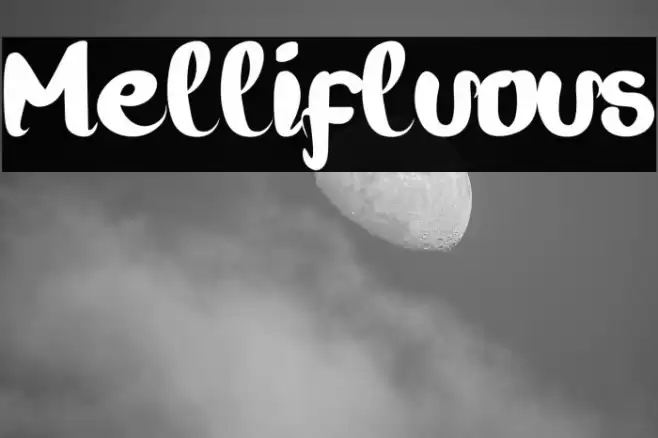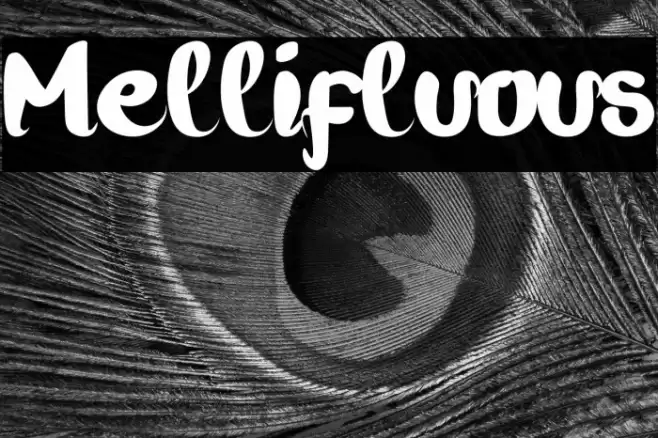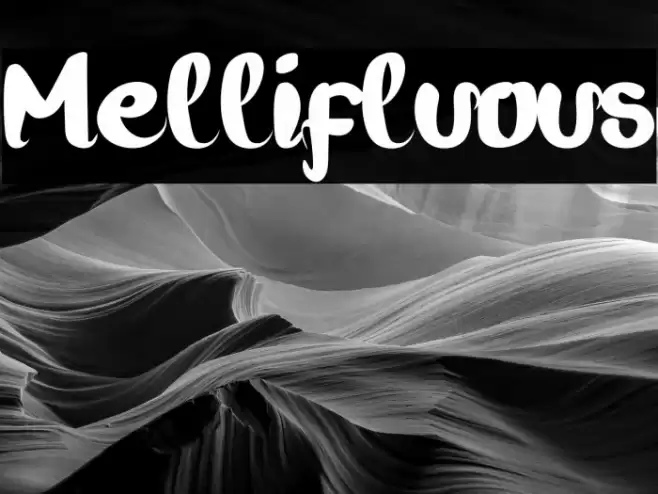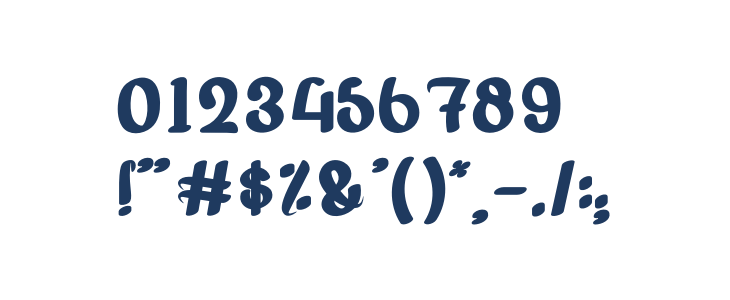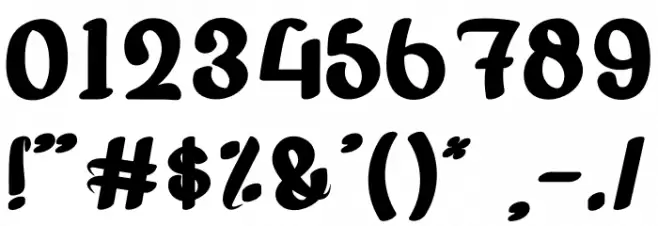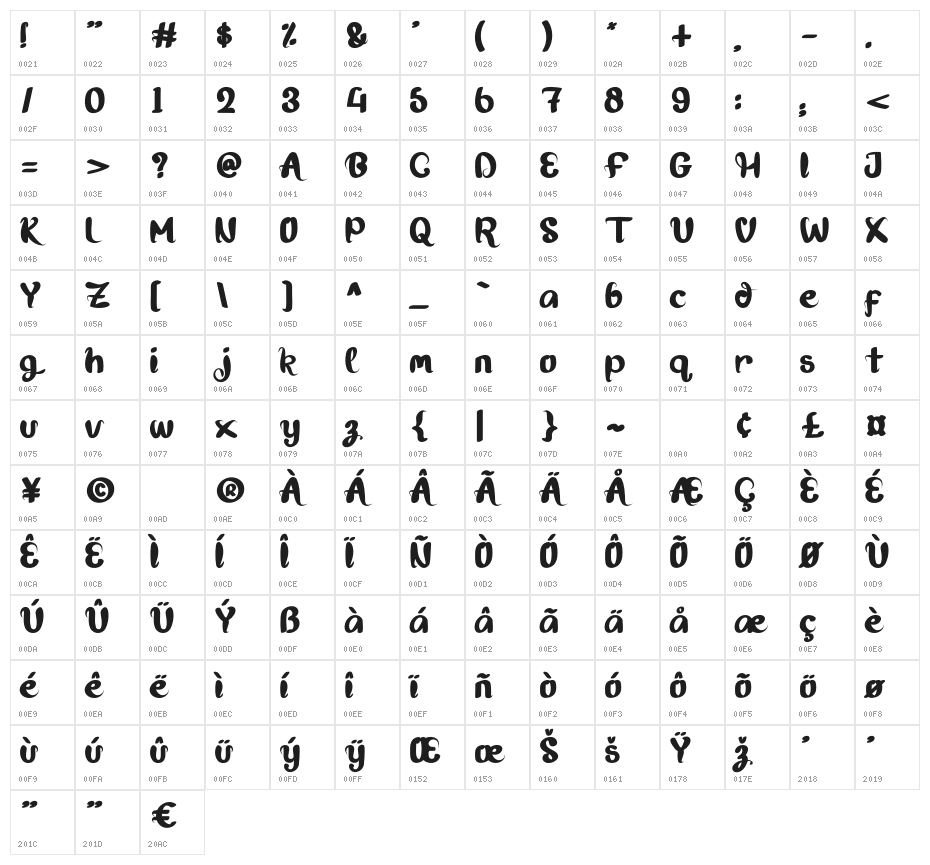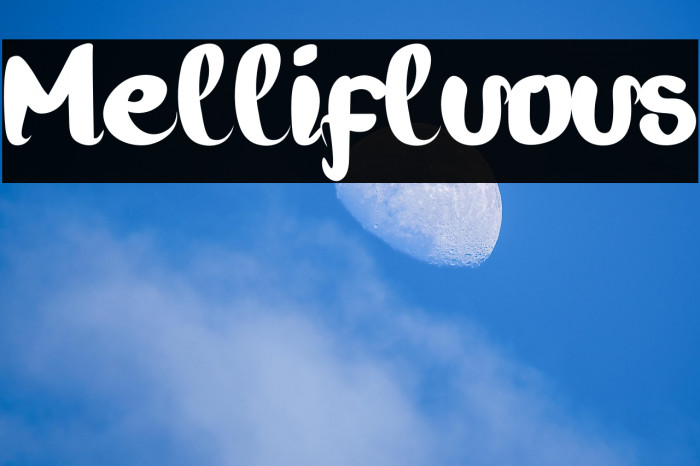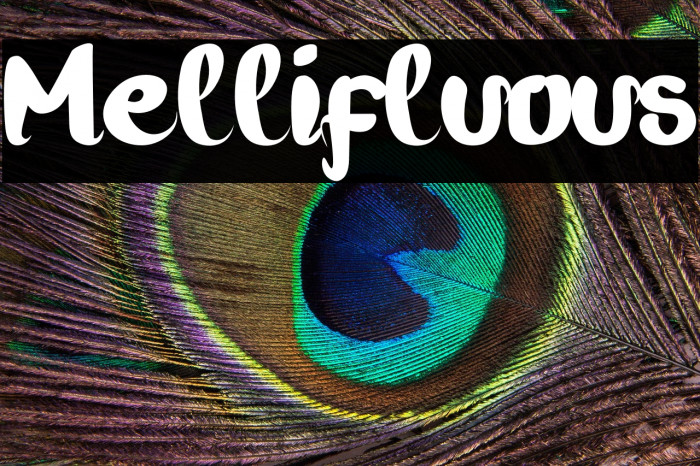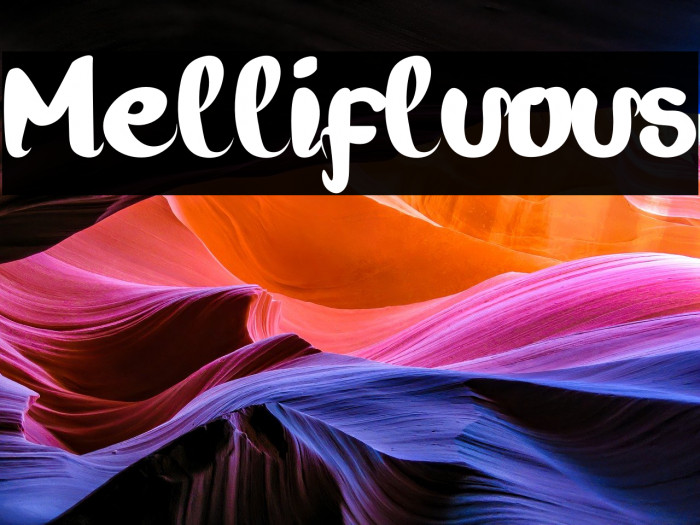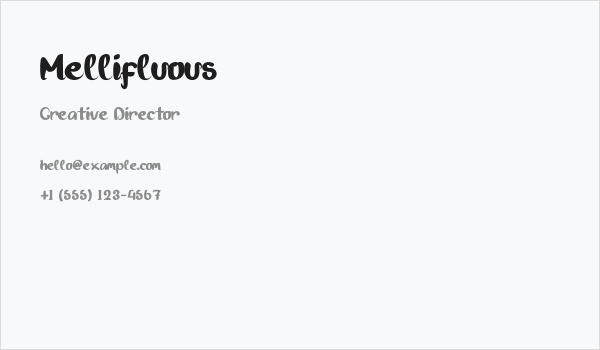
Mellifluous Font
Mellifluous Description
This font features a bold and expressive script style with a playful and artistic flair. The characters exhibit a flowing, cursive design with exaggerated curves and loops, creating a sense of movement and dynamism. The uppercase letters are particularly ornate, with unique flourishes that add a decorative touch. The lowercase letters maintain a consistent style, complementing the uppercase with their rounded forms and smooth connections. The numbers and special characters are equally stylized, ensuring a cohesive look across all elements. This font's bold weight and high contrast between thick and thin strokes make it stand out, ideal for eye-catching designs.
A bold, expressive script font with playful curves and high contrast from Regular fonts.
- Proposed Projects: Ideal for branding, invitations, posters, and creative projects that require a distinctive and artistic touch.
- Use Case: Logos, Headlines, Invitations